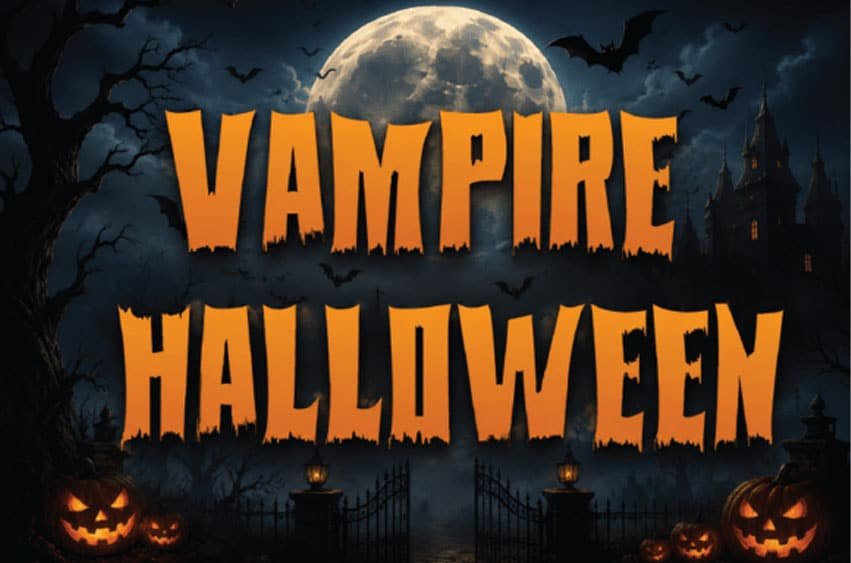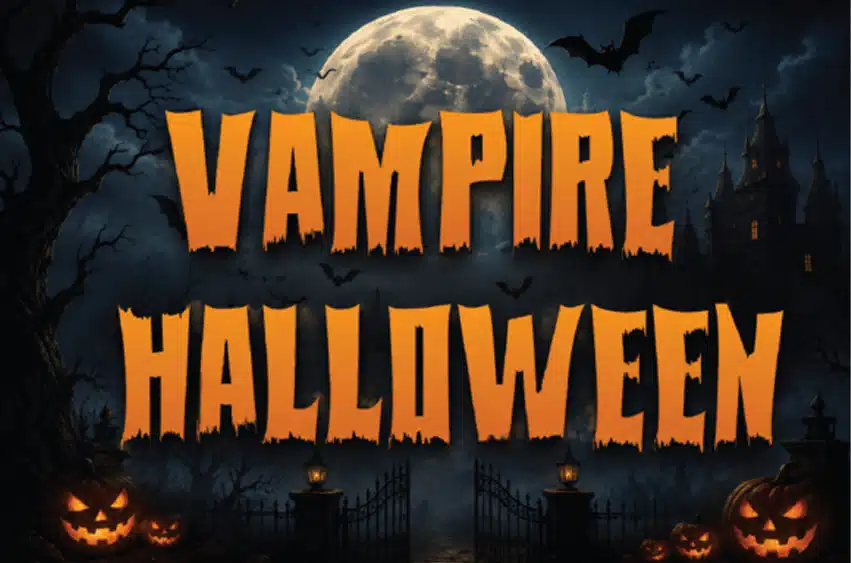
Vampire Halloween Font is a spooky Halloween display font featuring a bold, distressed horror style inspired by vampires, haunted houses, full moons, and eerie nights.